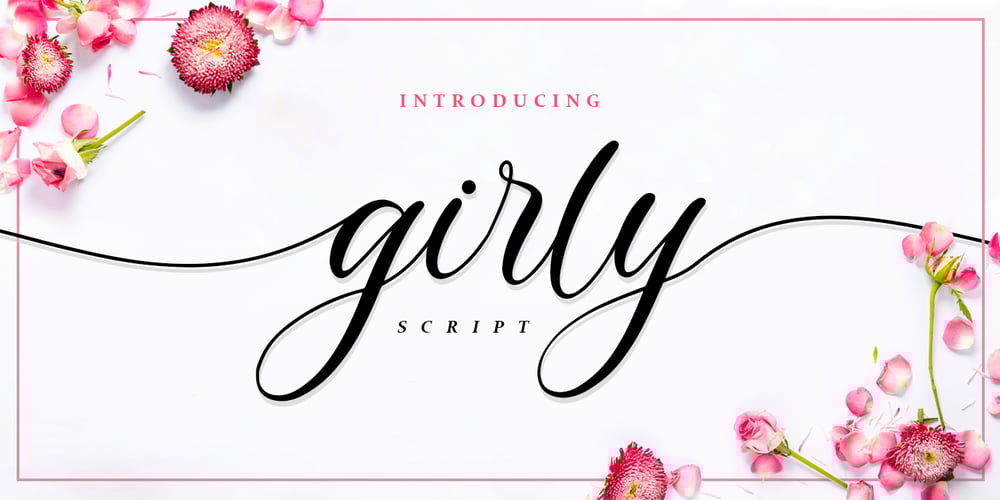
Girly
Girly font
Girly Font Family was designed by Abdul Malik Wisnu and published by Almarkha Type. Girly contains 1 styles and family package options. Girly – is a Lovely Script Calligraphy font with a natural handwritten feel. It has sweety swash that are perfect for any creative design. This handmade font will make your design has a beautiful natural touch for each details. It is perfect for any design project as Invitation,logo, book cover, craft or any design purposes.This font is PUA encoded which means you can access all of the magical glyphs and swashes with ease! It also features a wealth of special features including alternate glyphs and ligatures.